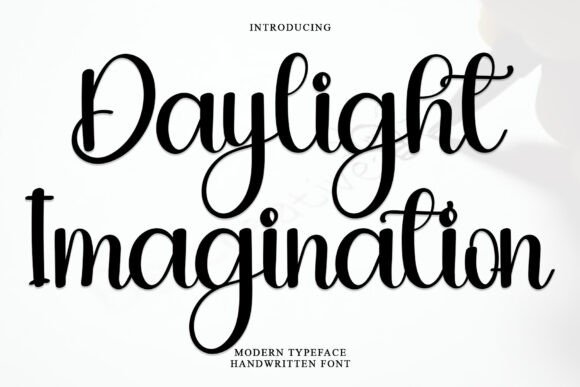
Discover the Elegance of Daylight Imagination Font: Elevate Your Designs with a Touch of Sophistication
In the realm of typography, few fonts manage to strike a balance between classic elegance and modern flair. Daylight Imagination Font is one such exceptional typeface that has captured the hearts of designers and creative enthusiasts alike. This exquisite handwritten font is masterfully designed to become a true favorite, offering a perfect blend of classy calligraphic influences and contemporary freshness.
What Makes Daylight Imagination Font Stand Out?
- Handwritten Elegance: Daylight Imagination Font boasts a beautiful, handcrafted aesthetic that adds a personal touch to any project. Its flowing lines and delicate curves evoke a sense of sophistication and refinement.
- Classy Calligraphic Influences: The font’s design is deeply rooted in traditional calligraphy, yet it has been carefully adapted to feel modern and relevant. This unique blend of old and new makes it an excellent choice for designers seeking to create stunning visual content.
- Contemporary Freshness: Despite its classic undertones, Daylight Imagination Font feels remarkably contemporary. Its clean lines, balanced proportions, and subtle nuances ensure that it remains versatile and adaptable to a wide range of design applications.
Endless Design Possibilities with Daylight Imagination Font
Daylight Imagination Font is an incredibly versatile typeface that can be used in various design contexts. Here are some of the many ways you can leverage this beautiful font to elevate your projects:
- Branding and Logo Design: Create memorable brand identities with Daylight Imagination Font. Its elegant, handcrafted aesthetic makes it perfect for logos, wordmarks, and letterheads that require a touch of sophistication.
- Wedding and Event Planning: Add a romantic, whimsical touch to your wedding invitations, stationery, and event branding with this lovely font. Its calligraphic influences evoke a sense of luxury and refinement.
- Packaging and Product Design: Use Daylight Imagination Font to create eye-catching packaging designs that stand out on store shelves. Its contemporary freshness ensures that your products will appeal to modern consumers.
- Digital Content and Blogging: Enhance your online presence with Daylight Imagination Font. Its clean lines and balanced proportions make it perfect for blog headers, social media graphics, and other digital content.
Typography Tips for Working with Daylight Imagination Font
To get the most out of Daylight Imagination Font, consider the following typography tips:
- Pair it with Neutral Backgrounds: Allow Daylight Imagination Font to take center stage by pairing it with neutral backgrounds. This will help its elegant lines and curves shine.
- Experiment with Colors: Don’t be afraid to experiment with different colors and textures. Daylight Imagination Font looks stunning in a range of colors, from soft pastels to rich jewel tones.
- Play with Ligatures: Take advantage of Daylight Imagination Font’s beautiful ligatures to add an extra touch of elegance to your designs.
- Adjust Font Sizes: Experiment with different font sizes to create visual hierarchy and emphasis. Daylight Imagination Font remains legible and beautiful at a range of sizes.
Why Designers Love Daylight Imagination Font
Daylight Imagination Font has quickly become a favorite among designers, and for good reason. Here are some insights into what makes this font so special:
- Unique Character: Daylight Imagination Font offers a distinctive character that sets it apart from more generic typefaces. Its handmade aesthetic and calligraphic influences make it a true standout.
- Time-Saving: With Daylight Imagination Font, you can create stunning designs in a fraction of the time. Its versatility and elegance mean you can focus on creativity, rather than getting bogged down in typography details.
- Cross-Platform Compatibility: This font is designed to work seamlessly across various platforms and devices. Whether you’re designing for print, web, or mobile, Daylight Imagination Font has got you covered.
Get Started with Daylight Imagination Font Today!
Ready to fall in love with Daylight Imagination Font and bring your projects to the highest levels? Here’s how to get started:
Daylight Imagination Font is a game-changing typeface that offers the perfect blend of elegance, sophistication, and modern flair. Its versatility, beauty, and ease of use make it an excellent choice for designers, creative enthusiasts, and anyone looking to elevate their projects. With Daylight Imagination Font, you can bring your designs to new heights and create stunning visual content that leaves a lasting impression.